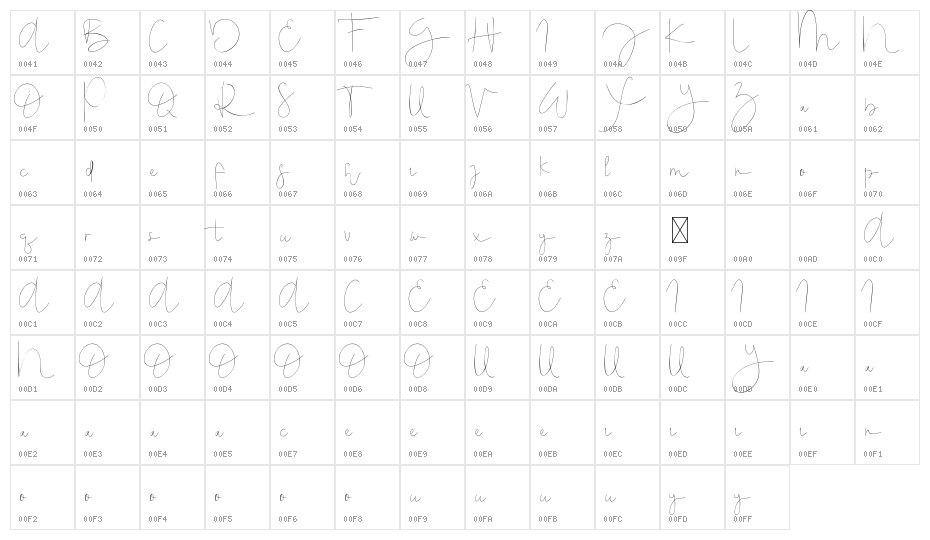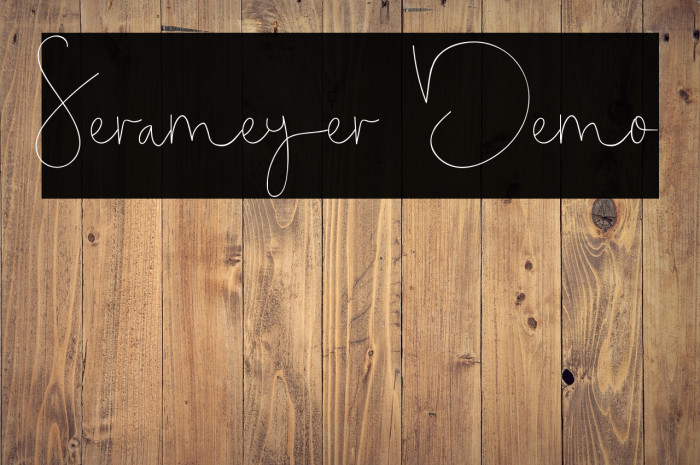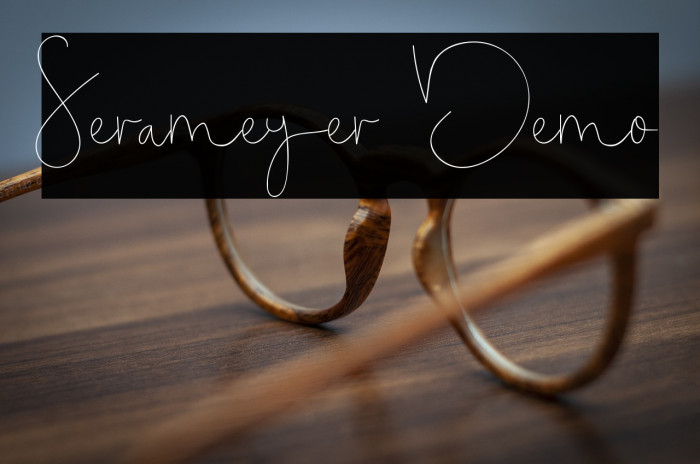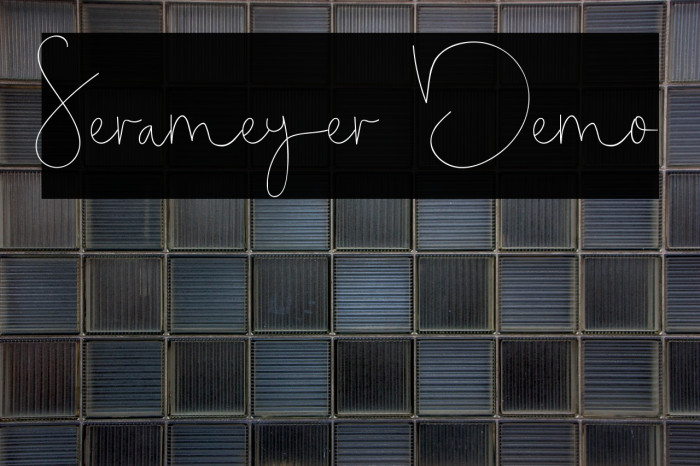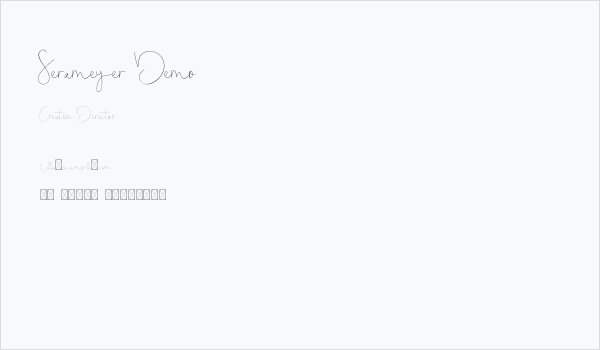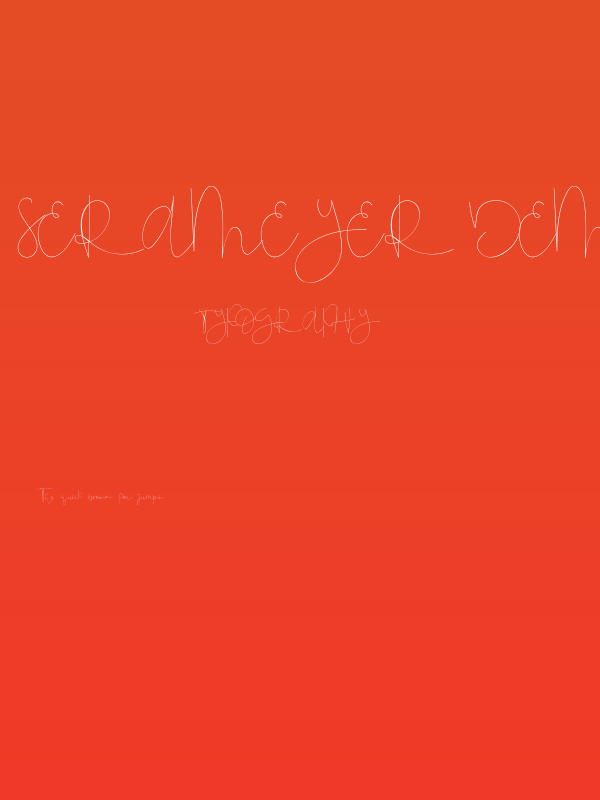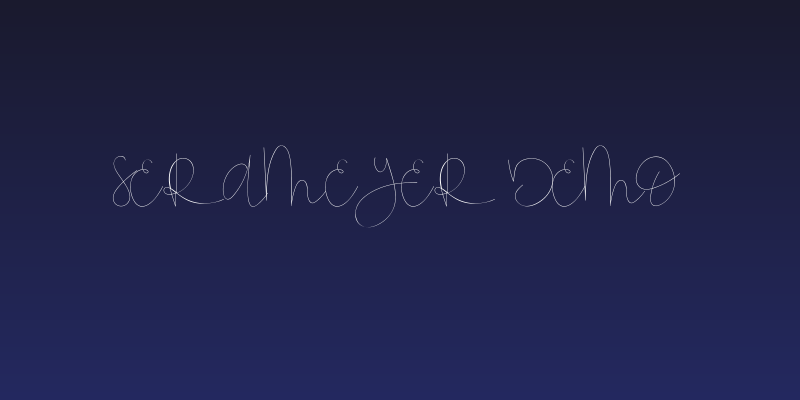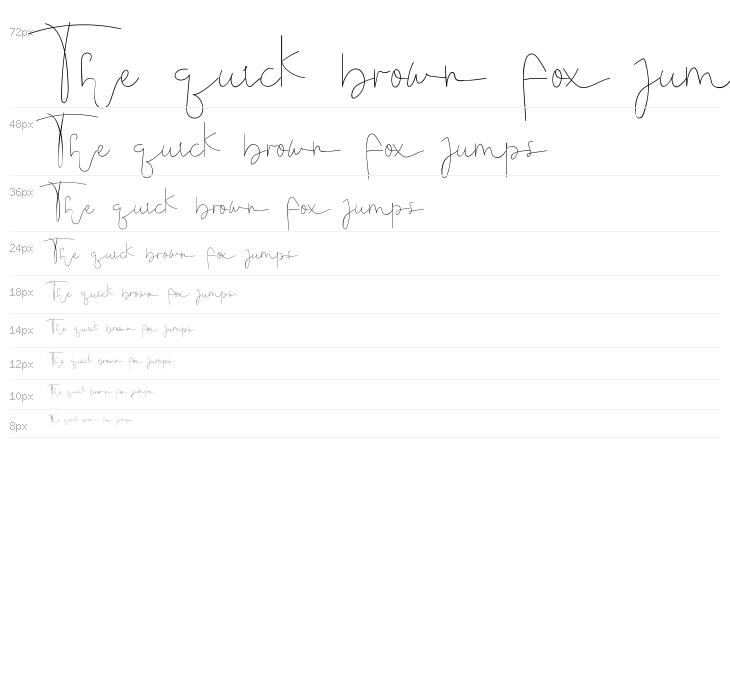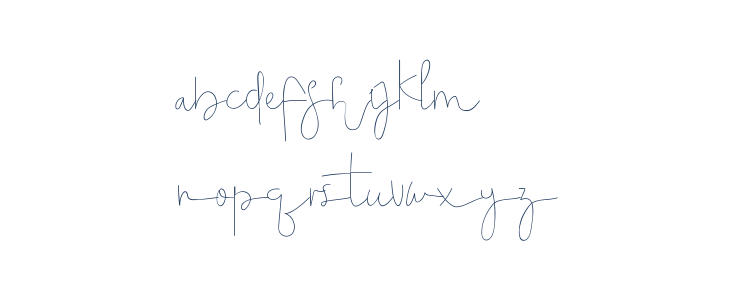
Serameyer Demo Font
Serameyer Demo Description
This font features an elegant and flowing handwritten style, characterized by its thin, delicate strokes and graceful curves. The letters are interconnected, creating a continuous script that mimics natural handwriting. The uppercase and lowercase letters maintain a consistent style, with a playful yet sophisticated appearance. The font's airy and light structure gives it a sense of openness and fluidity, making it ideal for projects that require a personal touch. Its unique style is both modern and timeless, suitable for a variety of creative applications.